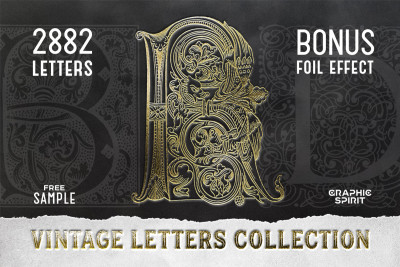
28 IN 1 VINTAGE LETTERS COLLECTION
28 IN 1 VINTAGE LETTERS COLLECTION Font
28 IN 1 VINTAGE LETTERS COLLECTION is a carefully designed typeface that brings a refined aesthetic to any creative project.
Common applications include business cards, posters, web headers, advertising materials, book covers, and corporate identity systems.